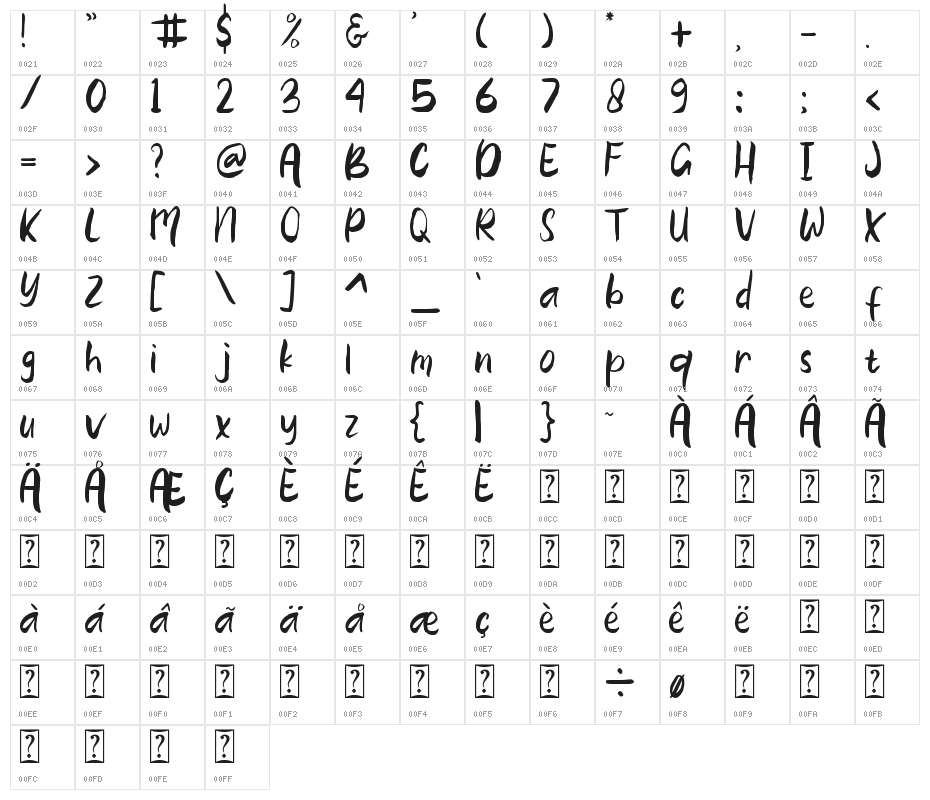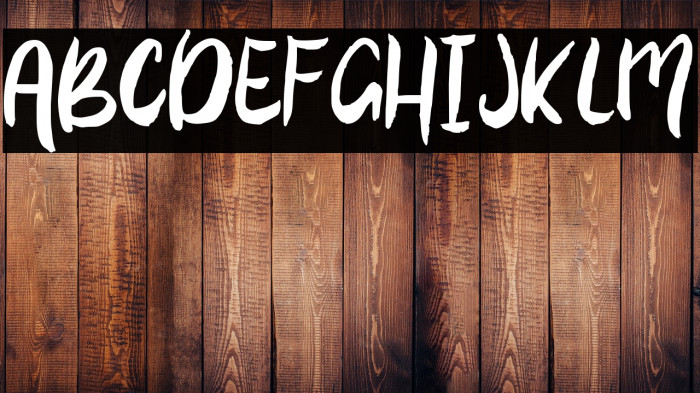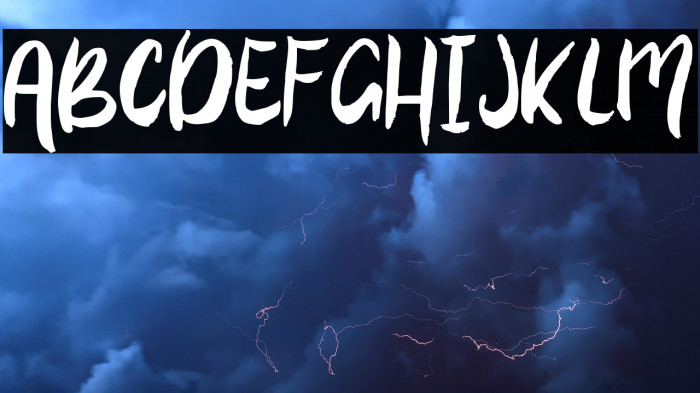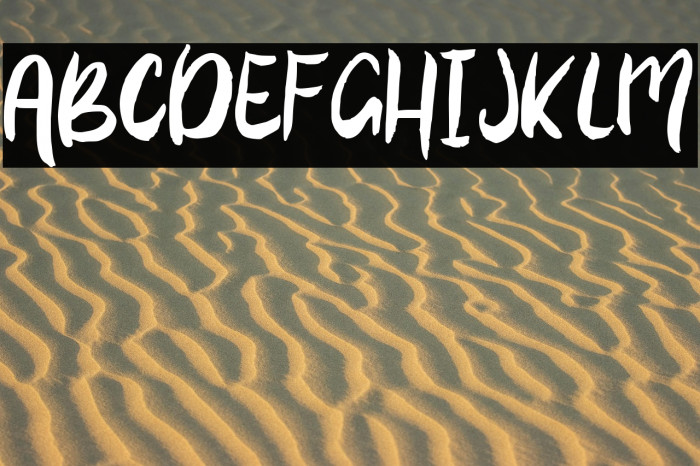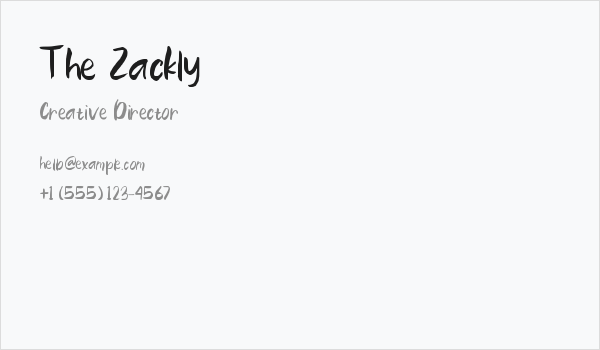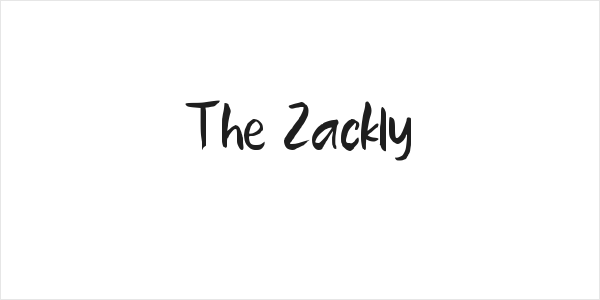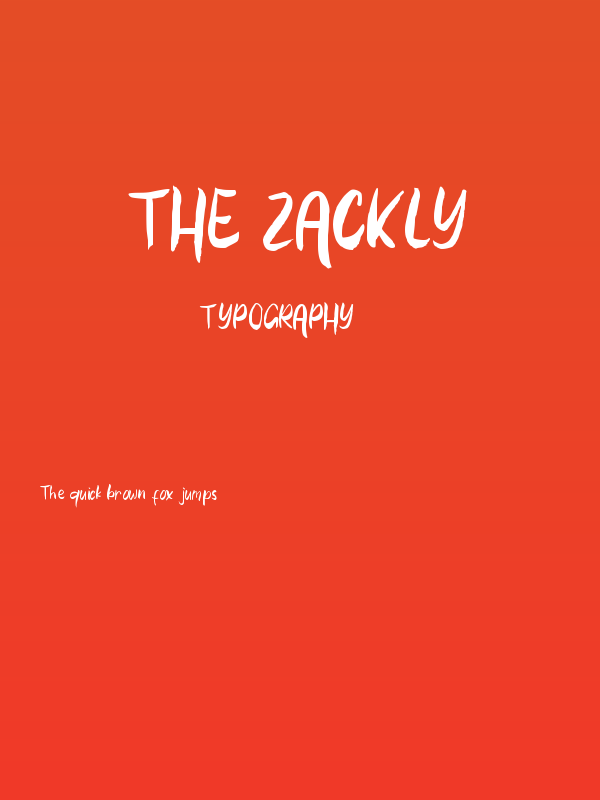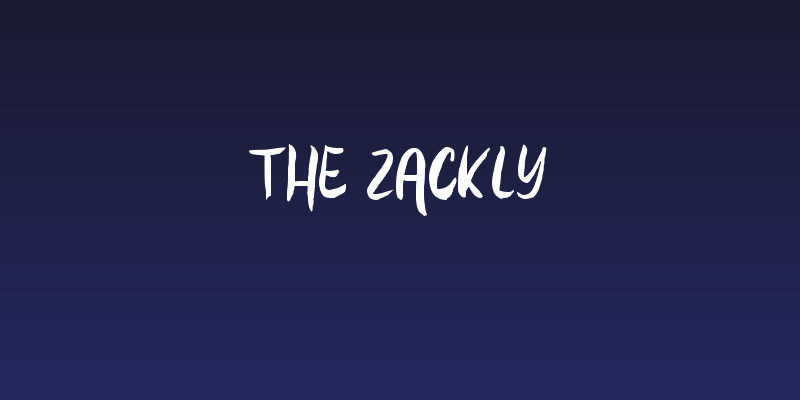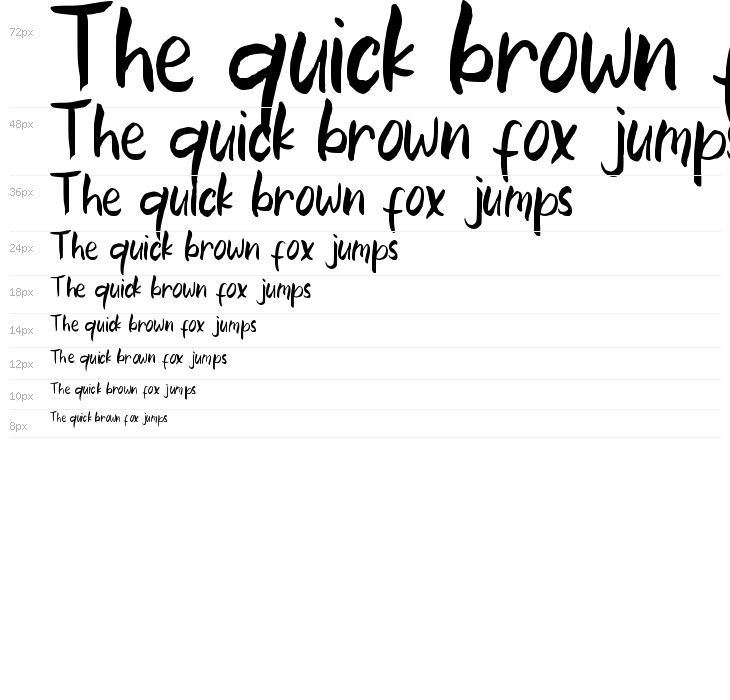
The Zackly Font
The Zackly Description
This font features a bold, handwritten style with a playful and dynamic appearance. The letters are slightly slanted, giving them an energetic and informal feel. The strokes are thick and uneven, adding to the casual and artistic vibe. The uppercase and lowercase letters are well-balanced, maintaining a consistent flow throughout. Numbers and special characters are crafted with the same boldness, ensuring uniformity across all characters. This font exudes a sense of creativity and spontaneity, making it ideal for projects that require a personal touch.